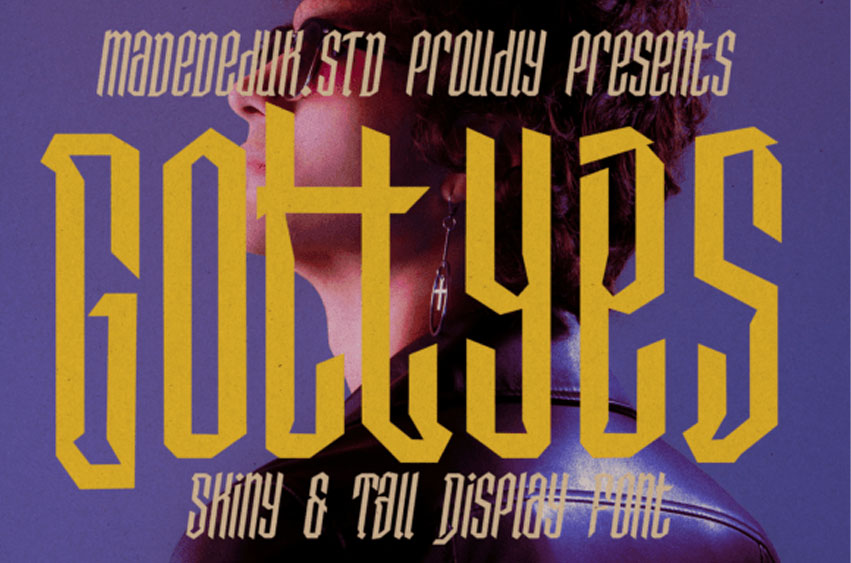
Gottyes Regular Font
Gottyes Regular Font is a tall, slender typeface that blends modern design with a subtle vintage charm. Featuring distinctive, unique curves in select glyphs, this font is available in a single weight with a complementary italic variant. Its condensed structure makes it an excellent choice for striking headlines.
While primarily designed as a display typeface, Gottyes is versatile enough to explore across both digital and print projects.